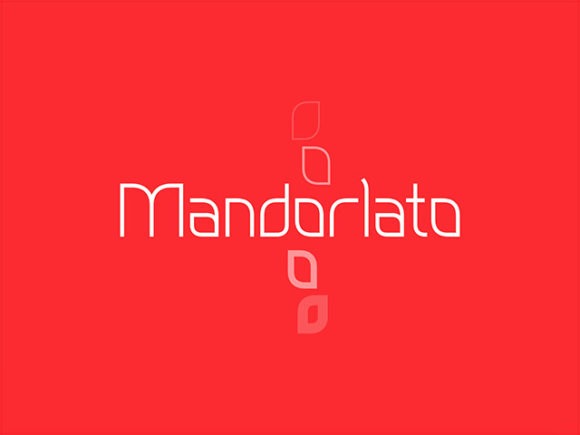
Mandorlato – A free font inspired by almond shape
Mandorlato is a free font family fruit of an exploration of the timeless almond shape designed by Stefano Giliberti. It comes with 505 glyphs and 5 weights: Extra Light, Light, Regular, Bold, Extra Bold, contains uppercase and lowercase letters, numerals and symbols, supports 91 languages. This creative font will perfectly suites for logos, branding, prints and and much more.